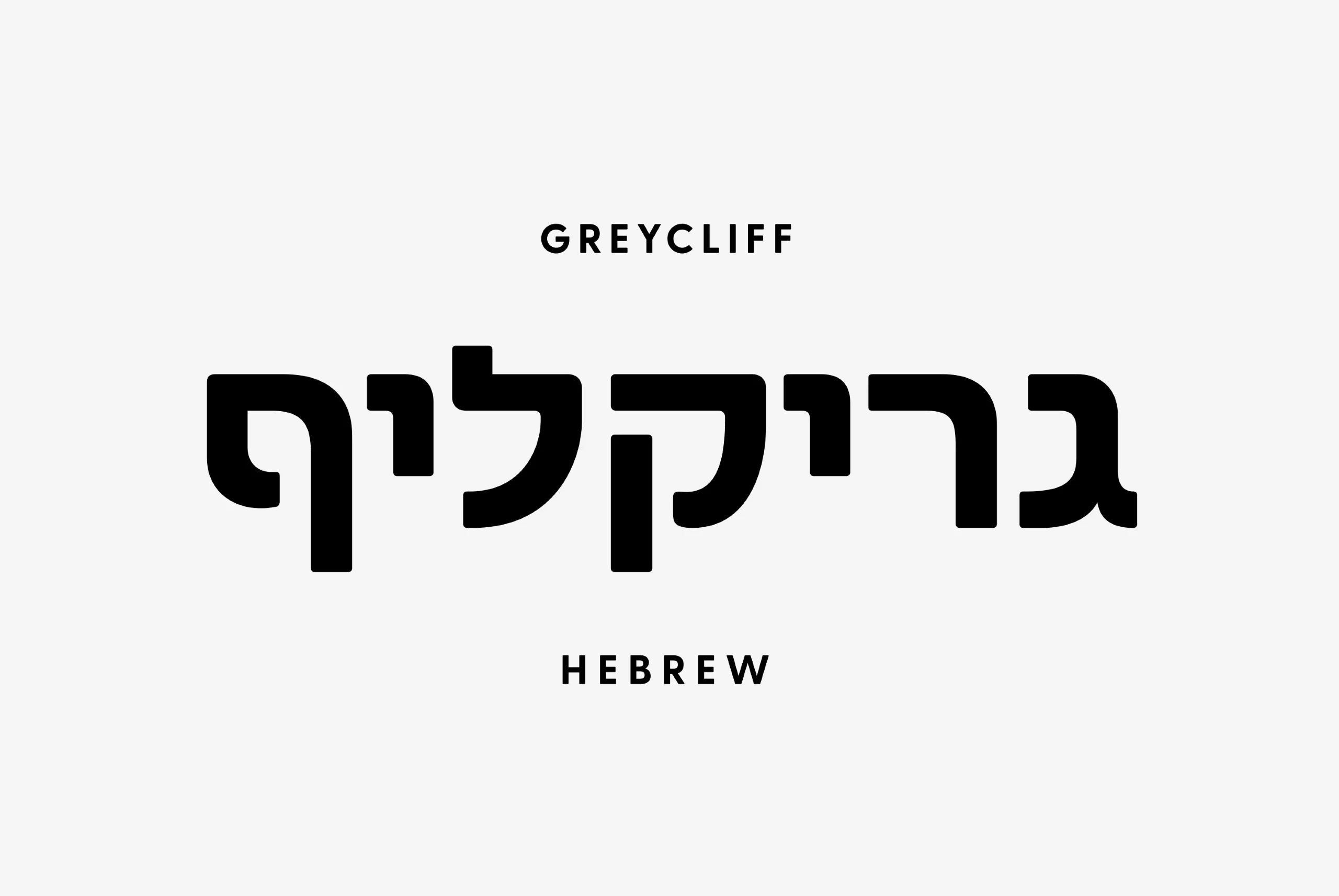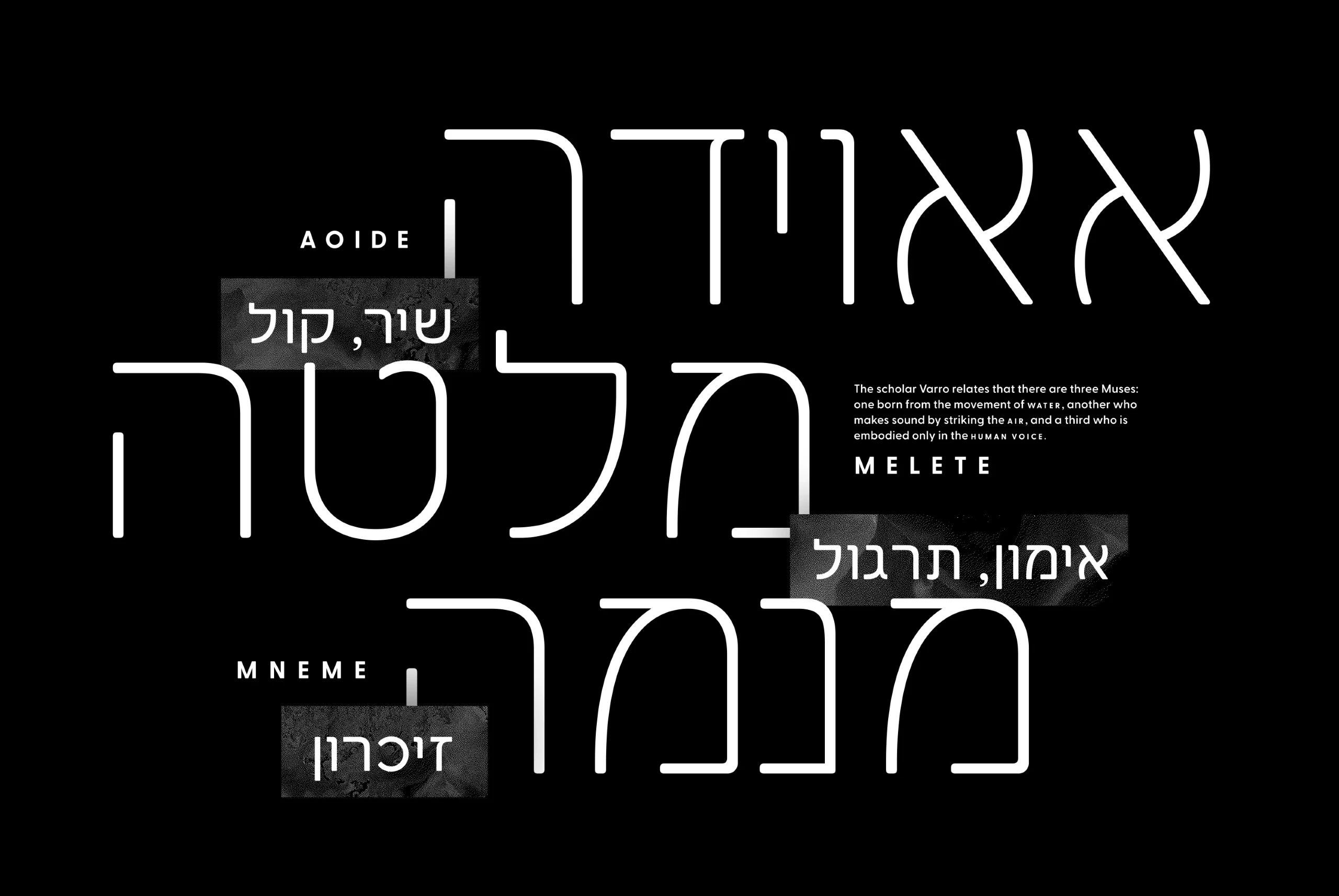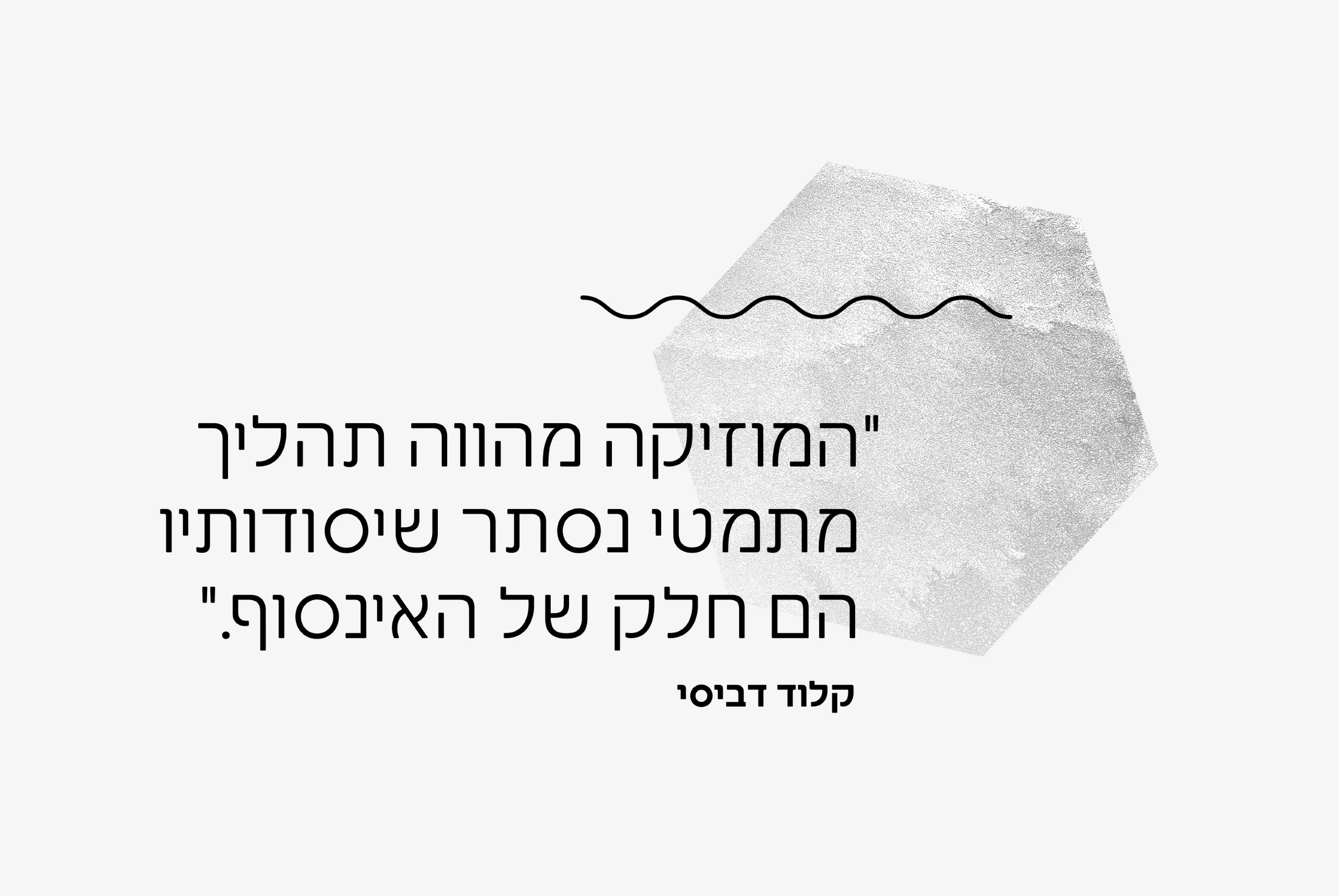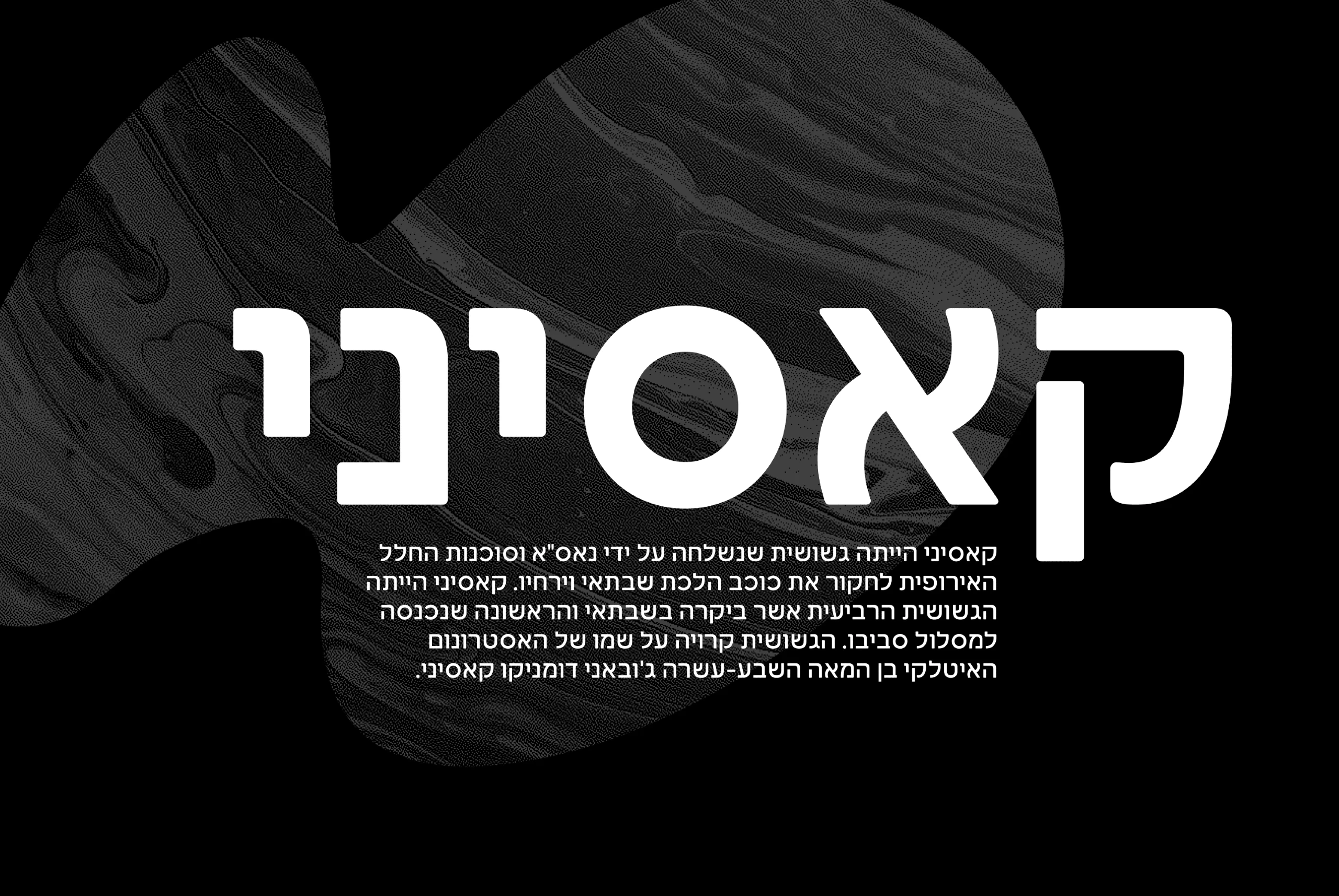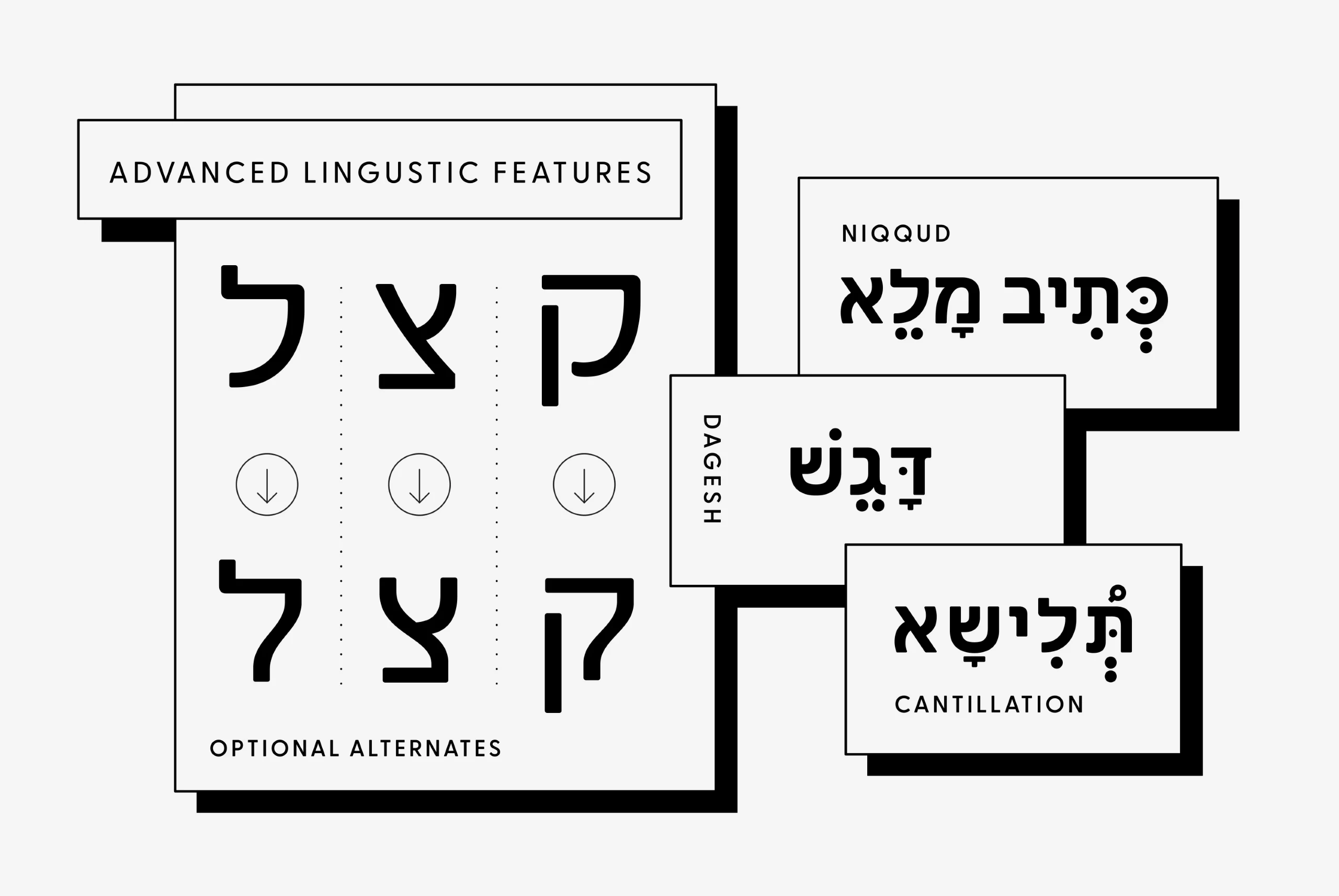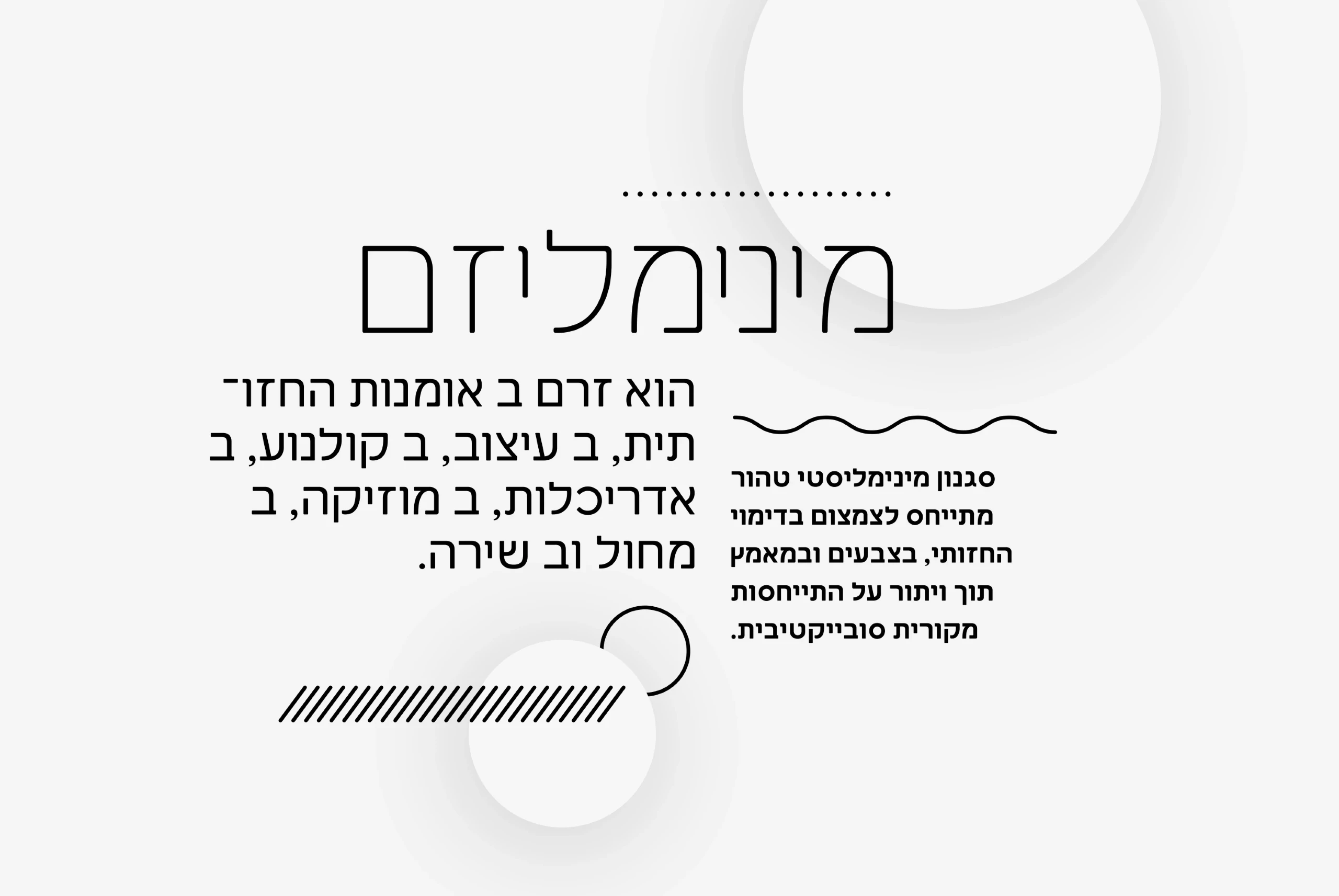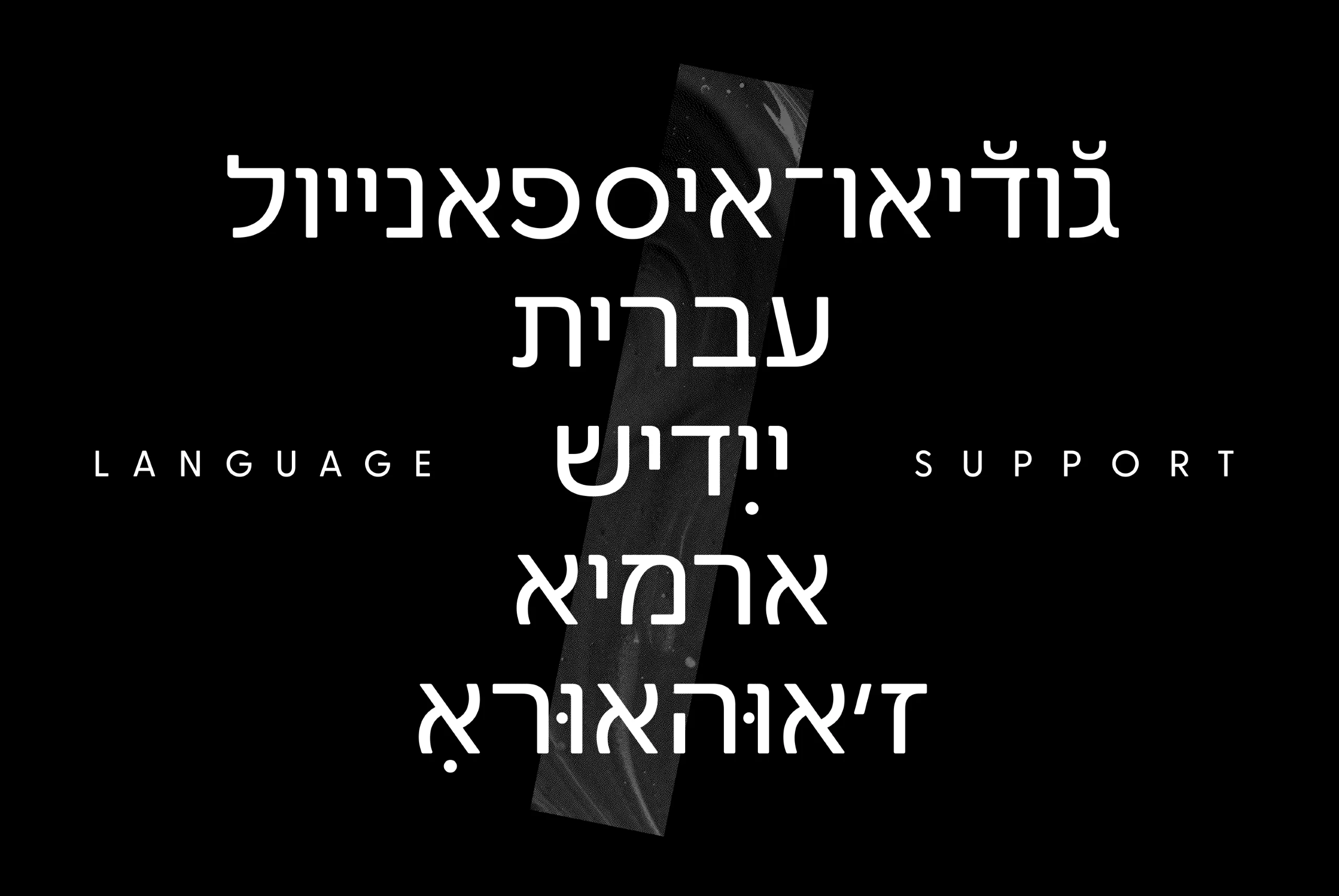
Greycliff Hebrew
Greycliff Hebrew CF adapts Greycliff’s soft, geometric design to the Hebrew script. Both Latin and Hebrew glyphs are included, allowing for visually cohesive multiple-script applications. Greycliff’s original nine weights are covered, alongside diacritics, cantillation marks, and wide Hebrew-script language support. Greycliff Hebrew CF works as a complete, self-contained type system, with both Hebrew and Latin scripts included and designed to compliment one another. All typefaces from Connary Fagen include free updates, including new features, and free technical support.
nine Weights in Latin & Hebrew Script
Language support includes Catalan, Chinese Pinyin, Croatian, Czech, Danish, Dutch, English, Filipino, Finnish, French, Fula, German, Hebrew, Hungarian, Indonesian, Italian, Latvian, Malay, Maltese, Norwegian, Polish, Portuguese, Romanian, Slovak, Slovenian, Spanish, Swedish, Turkish